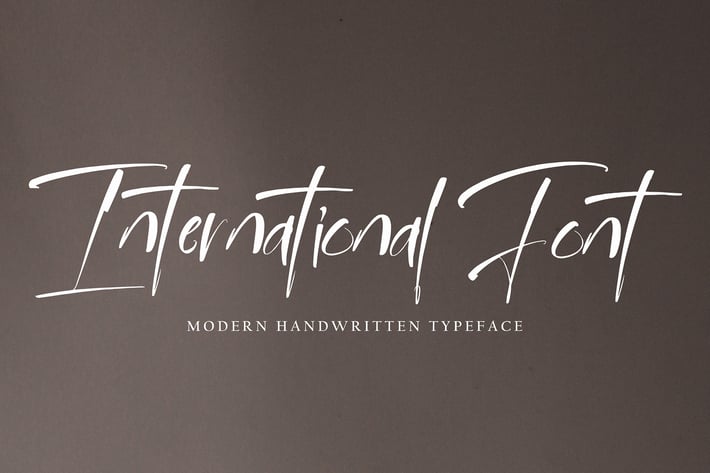
International Font
International Font with new style, this font will perfect for many different project ex: quotes, logo, blog header, poster, banding, letter, invitation, stationery, etc...